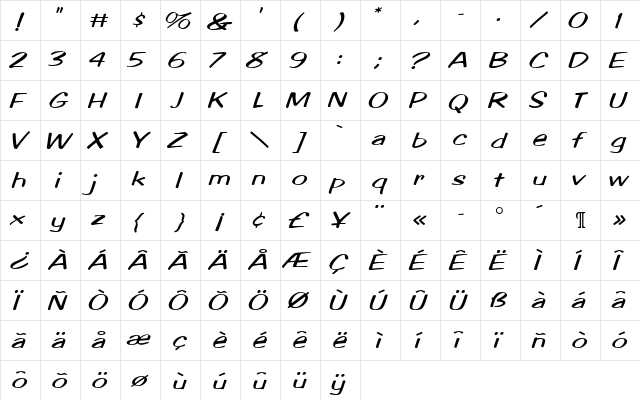
Britches Regular
Design Context for Britches Typeface
Britches is a composed and adaptable typeface that performs quietly and consistently across a wide range of design contexts.